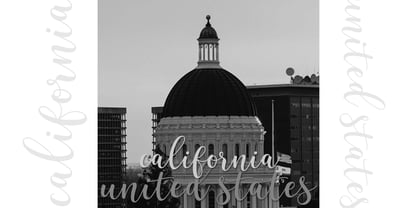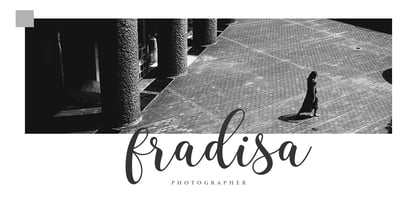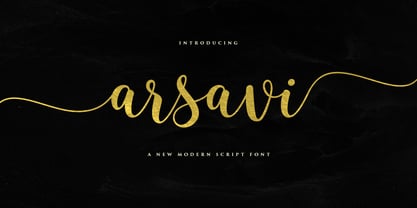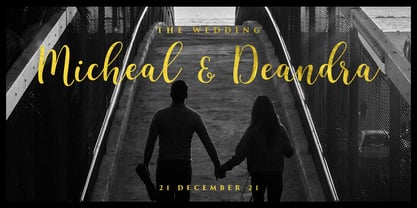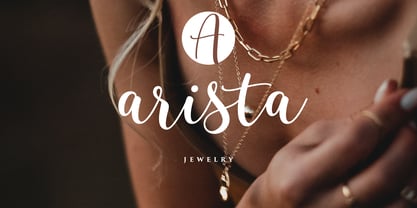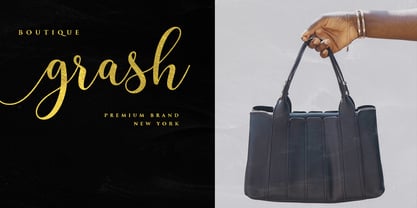
Arsavi Script
by Isaka Studios
The Arsavi Script Font Family was designed by Titin Saffati and published by Isaka Studios. Arsavi Script contains 1 styles. More about this family
Arsavi is a modern font script. This font comes in a dancing and upright style that will find a luxurious style! This font will be suitable in use for logo's, branding projects, homeware designs, product packaging, mugs, quotes, posters, shopping bags, logo's, t-shirts, book covers, name card, invitation cards, greeting cards, and all your other lovely projects.
Designers: Titin Saffati
Foundry: Isaka Studios